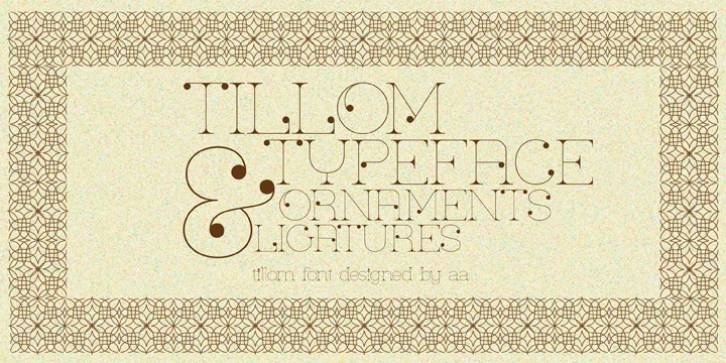
Tillom font family comes in two styles; decorative and semi-decorative. Tillom DC font contains 25 ornaments, especially it is used as borders. Tillom is a slender font to use when creating decorative logos, posters, t-shirts etc.